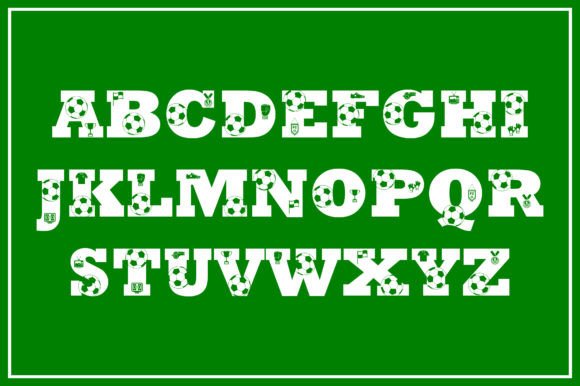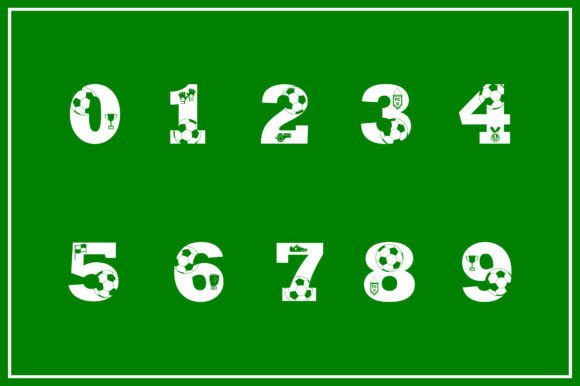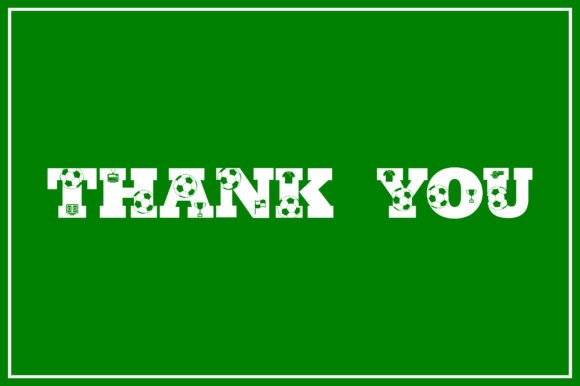
Great Soccer Font
Great Soccer is a fun and dynamic decorative display font. It is perfectly suitable for any design or crafty idea! Add it confidently to your projects and you will love the results.